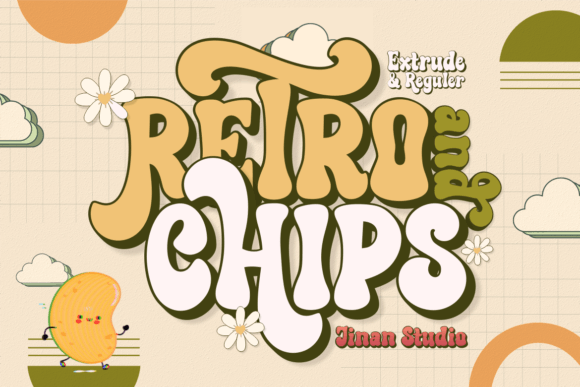
Retro and Chips Font: The Groovy, Cute, and Stylish Display Font for Your Creative Projects
Are you looking for a font that can add a touch of nostalgia and playfulness to your designs? Look no further than the Retro and Chips font! This groovy, cute, and stylish display font is perfect for a wide range of applications, from greeting cards to headlines, stickers, and retro-themed designs. In this article, we’ll take a closer look at the Retro and Chips font, its features, and how you can use it to elevate your creative projects.
What is Retro and Chips Font?
Retro and Chips is a display font that is designed to bring back the fun and playful vibe of the retro era. The font is characterized by its bold, rounded, and chunky letters, which are reminiscent of classic retro fonts. The font is perfect for designs that require a touch of nostalgia, playfulness, and whimsy.
Key Features of Retro and Chips Font
The Retro and Chips font comes with a range of features that make it a versatile and easy-to-use font. Some of its key features include:
- PUA Encoding: The font is PUA (Private Use Area) encoded, which means that you can access all of the amazing glyphs and ligatures with ease. This makes it easy to use the font for a wide range of applications, from greeting cards to headlines and stickers.
- Groovy and Cute Design: The font has a groovy and cute design that is perfect for retro-themed designs, greeting cards, and other creative projects.
- Stylish and Playful: The font has a stylish and playful vibe that is perfect for designs that require a touch of whimsy and fun.
- Wide Range of Applications: The font is suitable for a wide range of applications, from greeting cards to headlines, stickers, and retro-themed designs.
How to Use Retro and Chips Font
The Retro and Chips font is easy to use and can be applied to a wide range of creative projects. Here are some ideas on how to use the font:
- Greeting Cards: Use the font to create fun and playful greeting cards for birthdays, holidays, and other special occasions.
- Headlines and Titles: Use the font to create bold and eye-catching headlines and titles for your blog posts, articles, and other written content.
- Stickers and Labels: Use the font to create fun and playful stickers and labels for your products, packaging, or marketing materials.
- Retro-Themed Designs: Use the font to create retro-themed designs for your website, social media, or marketing materials.
Benefits of Using Retro and Chips Font
There are many benefits to using the Retro and Chips font for your creative projects. Some of the benefits include:
- Unique and Creative: The font is unique and creative, which can help your designs stand out from the crowd.
- Easy to Read: The font is easy to read, even at small sizes, which makes it perfect for a wide range of applications.
- Versatile: The font is versatile and can be used for a wide range of creative projects, from greeting cards to headlines and stickers.
- Time-Saving: The font is PUA encoded, which means that you can access all of the amazing glyphs and ligatures with ease, saving you time and effort.
Tips and Tricks for Using Retro and Chips Font
Here are some tips and tricks for using the Retro and Chips font:
- Experiment with Different Sizes: Experiment with different font sizes to find the perfect size for your design.
- Play with Colors: Play with different colors to find the perfect color scheme for your design.
- Use it with Other Fonts: Use the Retro and Chips font with other fonts to create a unique and creative design.
- Make it Your Own: Don’t be afraid to make the font your own by adding your own personal touch to the design.
The Retro and Chips font is a groovy, cute, and stylish display font that is perfect for a wide range of creative projects. With its PUA encoding, groovy and cute design, and stylish and playful vibe, this font is sure to elevate any creation. Whether you’re creating greeting cards, headlines, stickers, or retro-themed designs, the Retro and Chips font is a great choice. So why not give it a try and see how it can add a touch of nostalgia and playfulness to your designs?
- What is the Retro and Chips font?: The Retro and Chips font is a groovy, cute, and stylish display font that is perfect for a wide range of creative projects.
- What is PUA encoding?: PUA encoding is a way of encoding fonts that allows you to access all of the amazing glyphs and ligatures with ease.